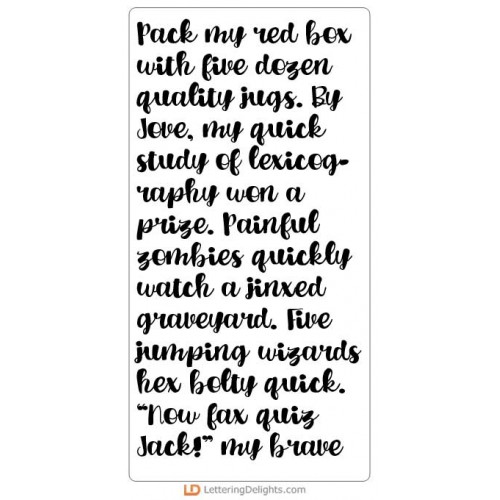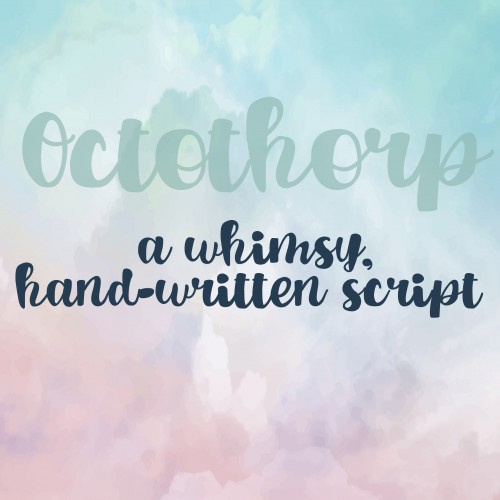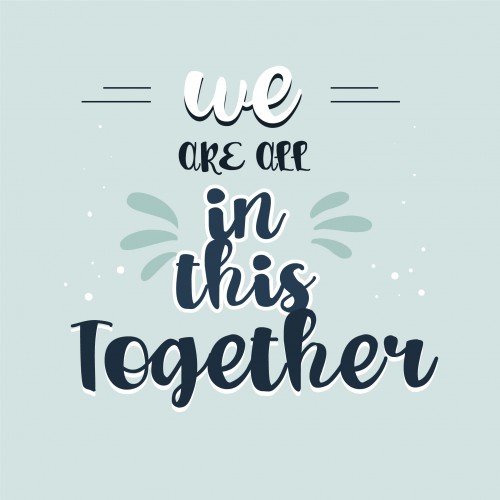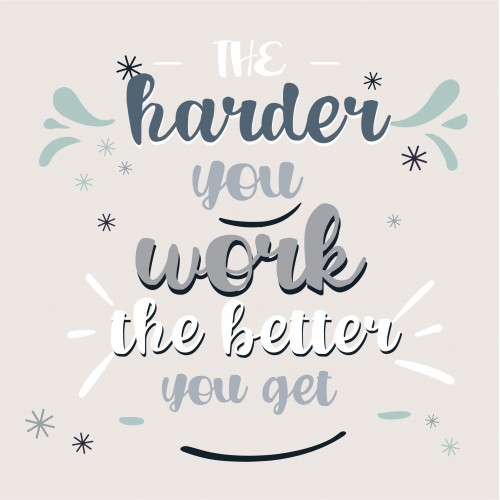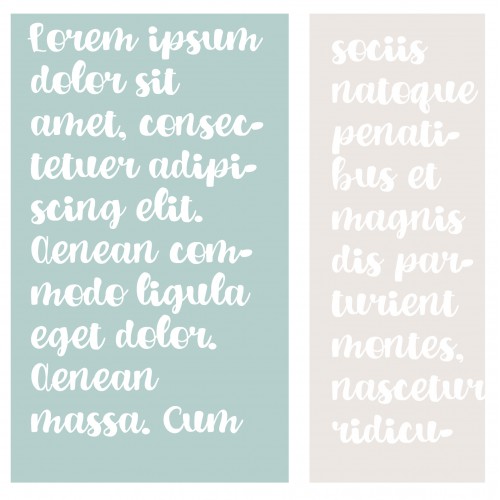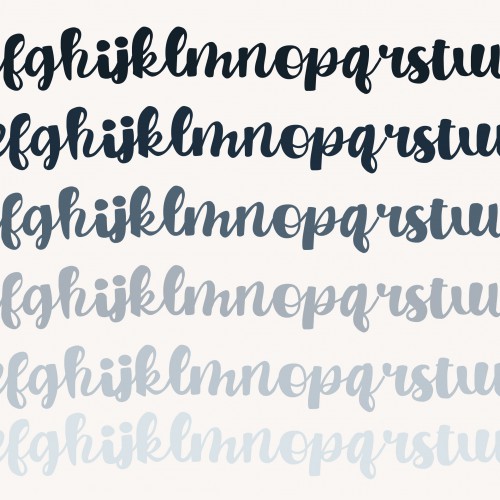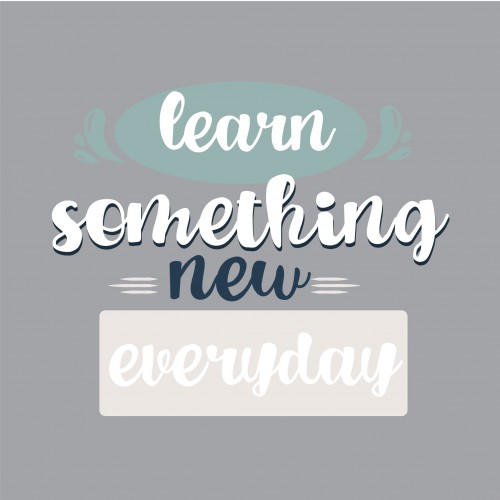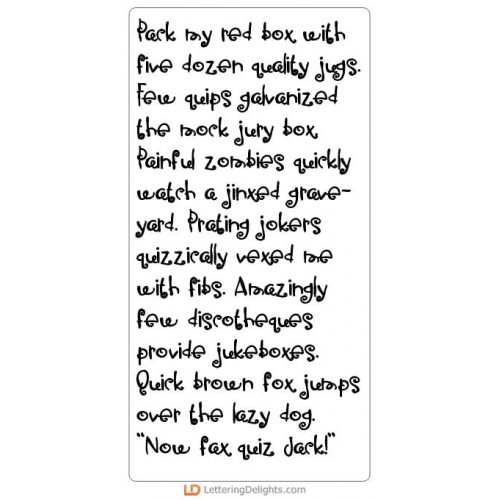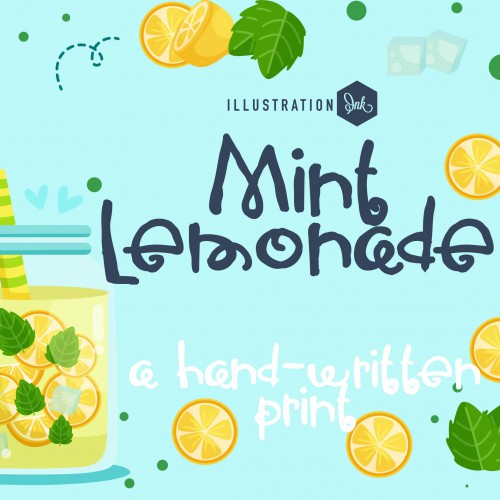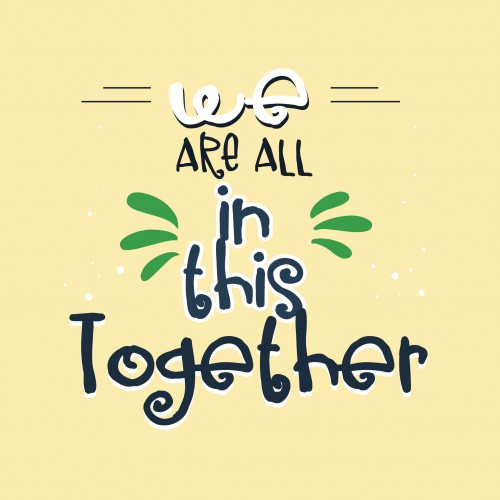
Lemon Meringue - Big Bundle
This adorable collection features kawaii style lemon themed treats and emojis. Perfect for cards, crafts, gifts,decor, planner stickers, scrap book pages and more!
PN Blank Space Bold - FN
This fun, squat font has slab serifs throughout and no descenders...
PN Octothorp Light - FN
This beautiful script is a mix of thick and thin lines...
PN Octothorp - FN
This beautiful script is a mix of thick and thin lines...
ZP Lemon Meringue - FN
This chunky, sans serif is great for fun titles, displays, and posters...
ZP Mint Lemonade - FN
This hand-wriitten print is bursting with texture...
ZP Mint Lemonade Bold - FN
This hand-wriitten print is bursting with texture...
DB Lemon Meringue - DB
This adorable doodlebat font features 26 kawaii style lemon themed treats. Perfect for cards, crafts..
DB Lemon Meringue - Emojis - DB
This adorable doodlebat font features 26 kawaii style lemon emojis. Perfect for cards, crafts, gifts..
Lemon Meringue - AL
This fun alphabet coordinates with our Lemon Meringue Collection...